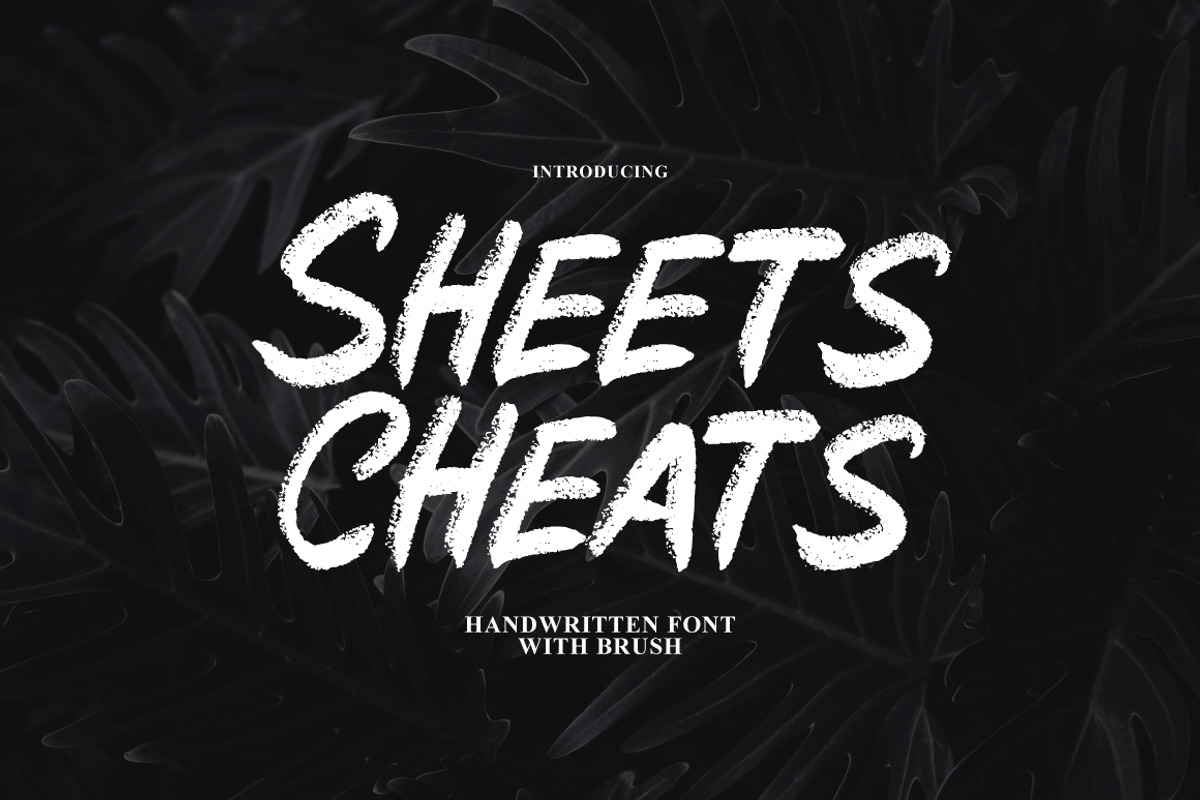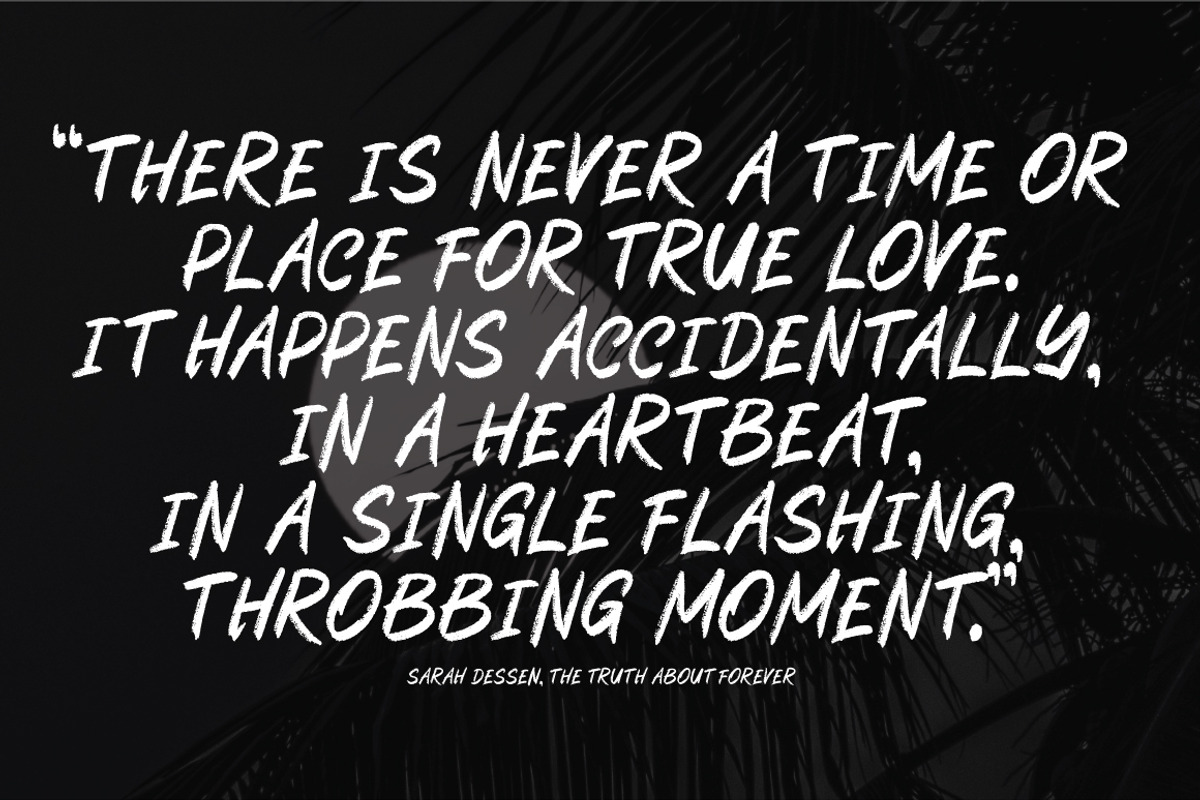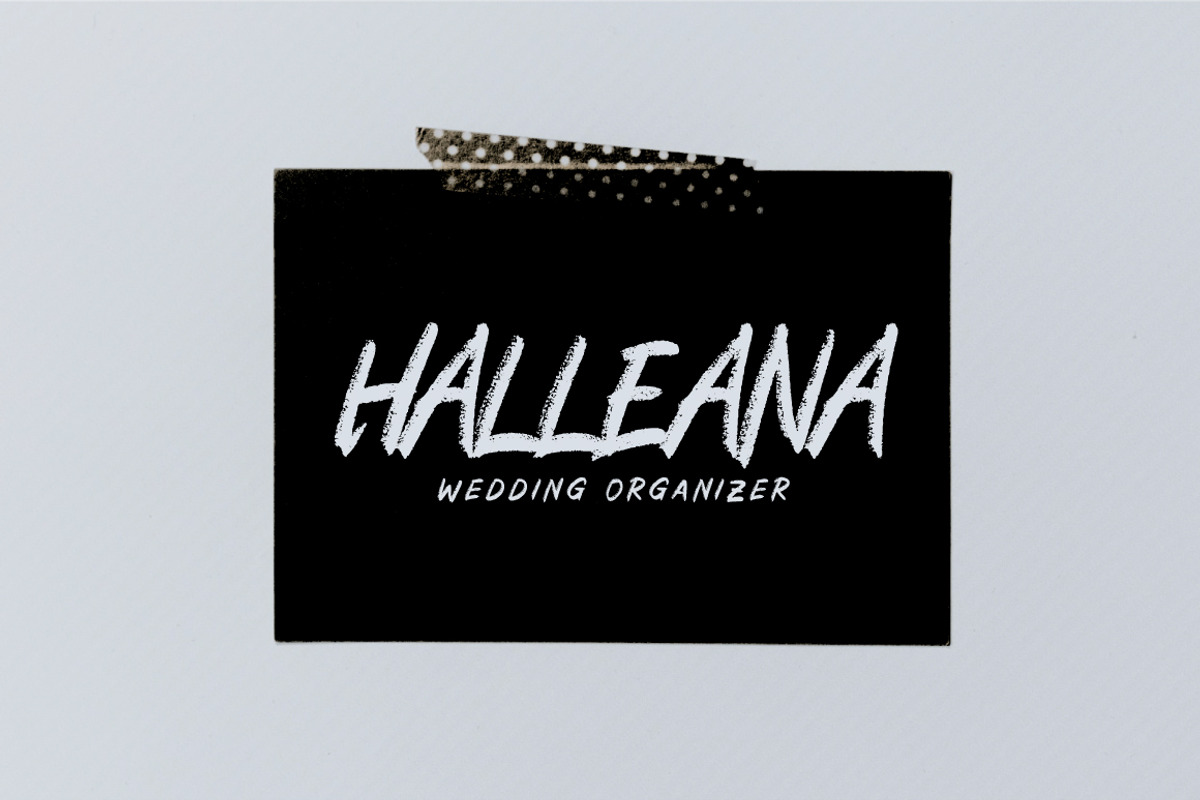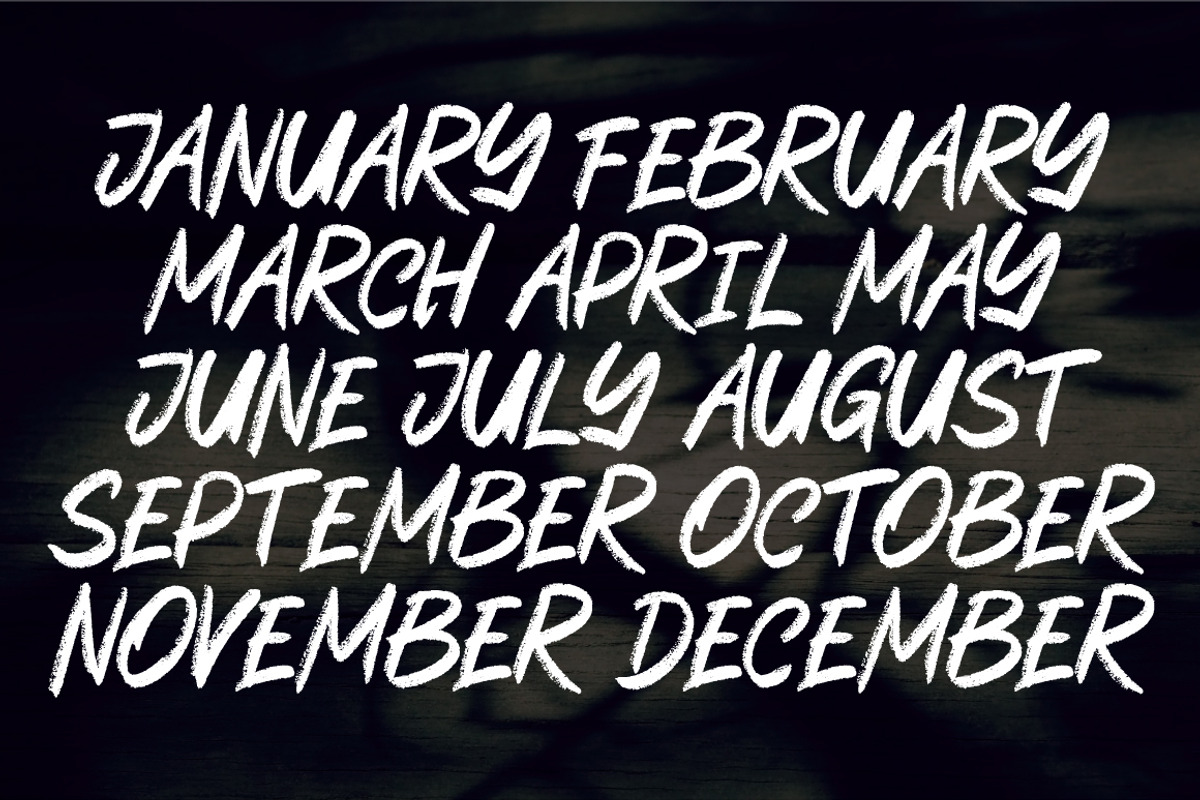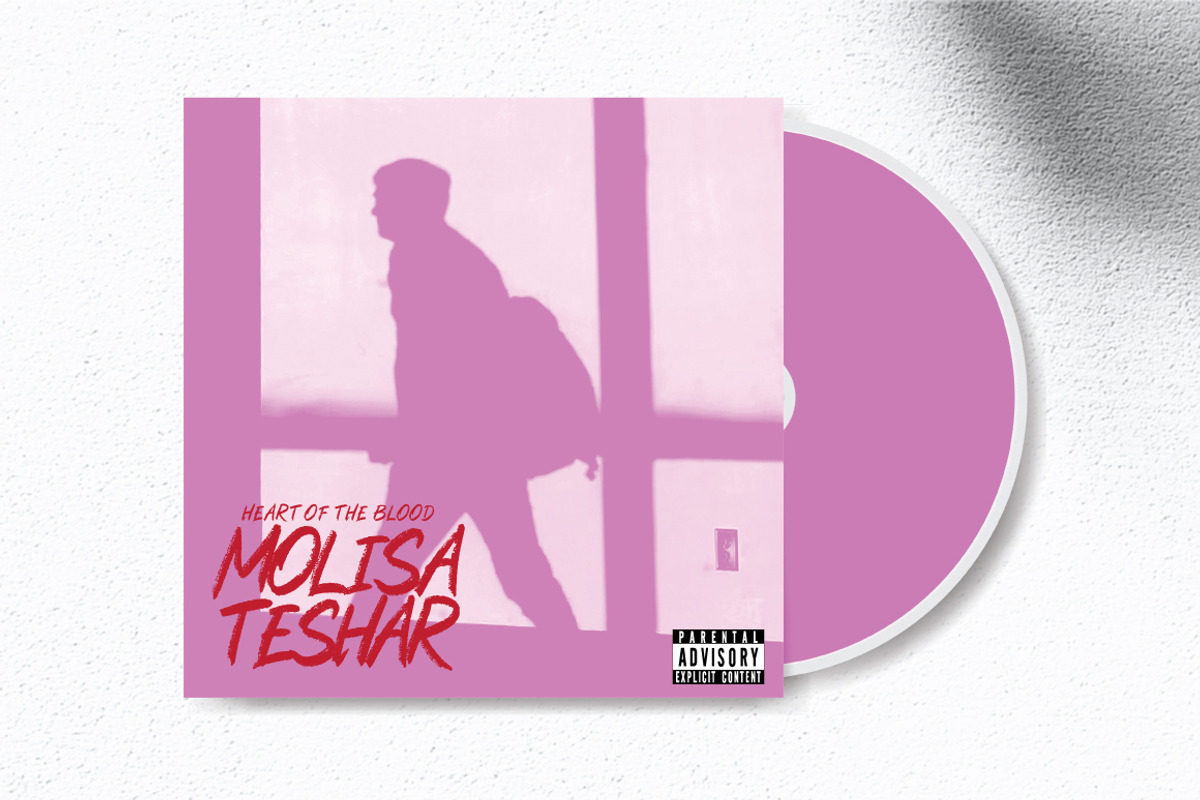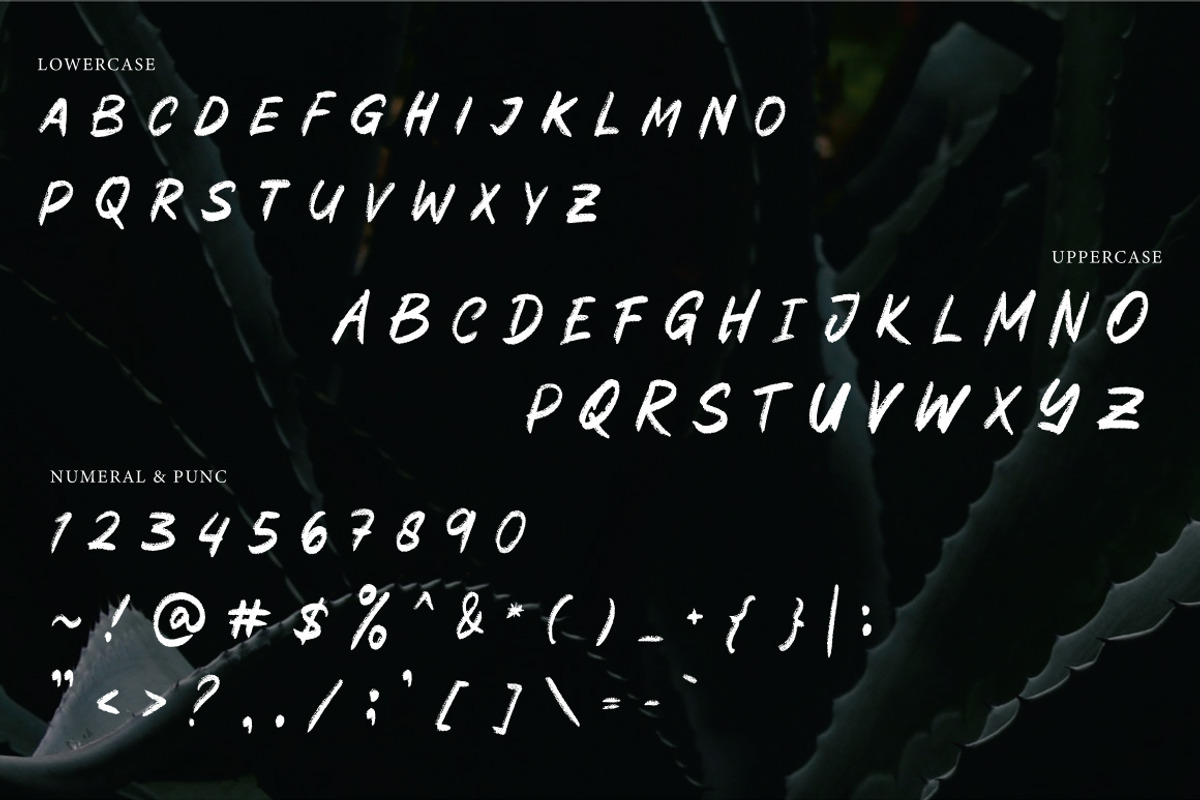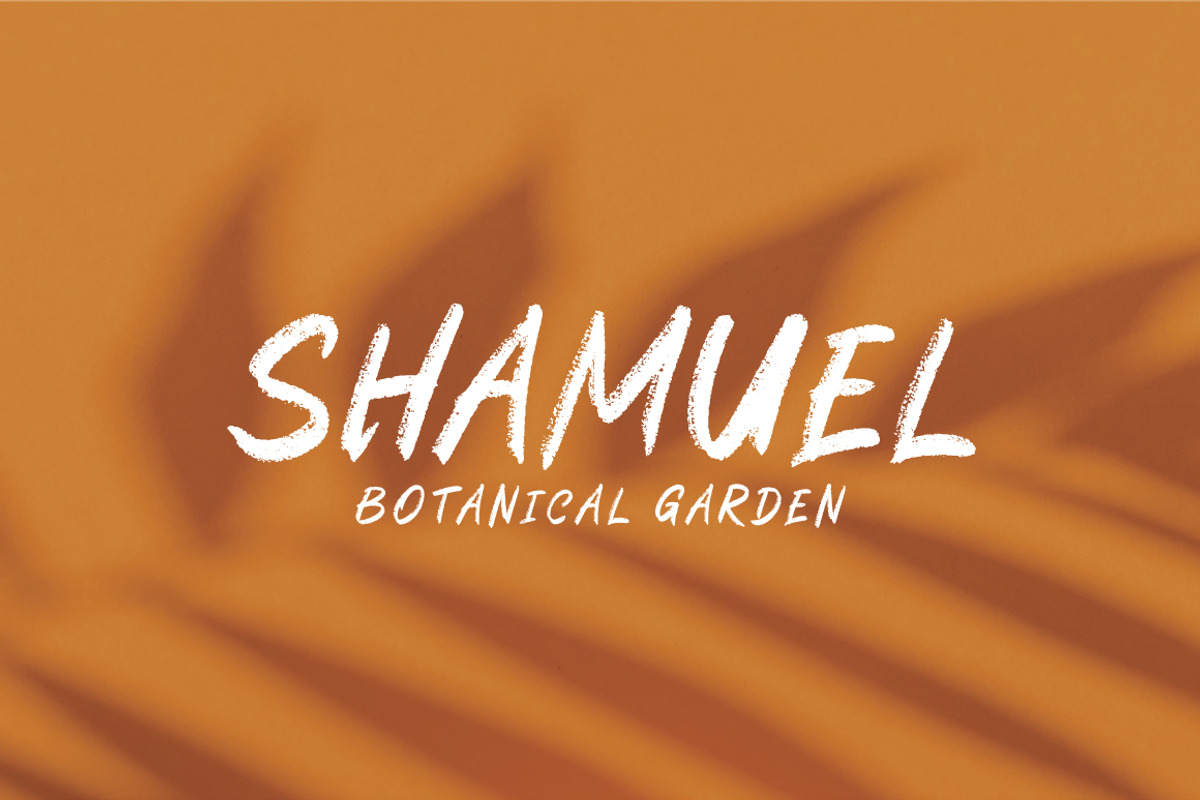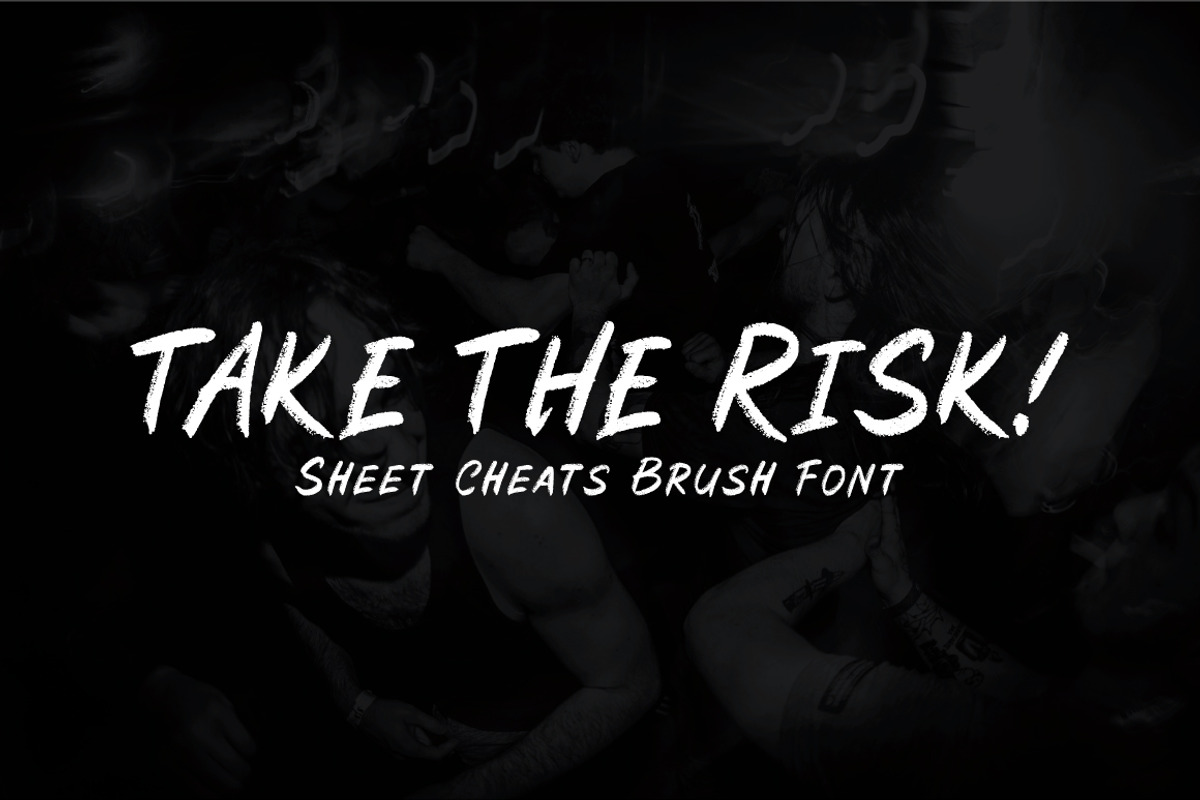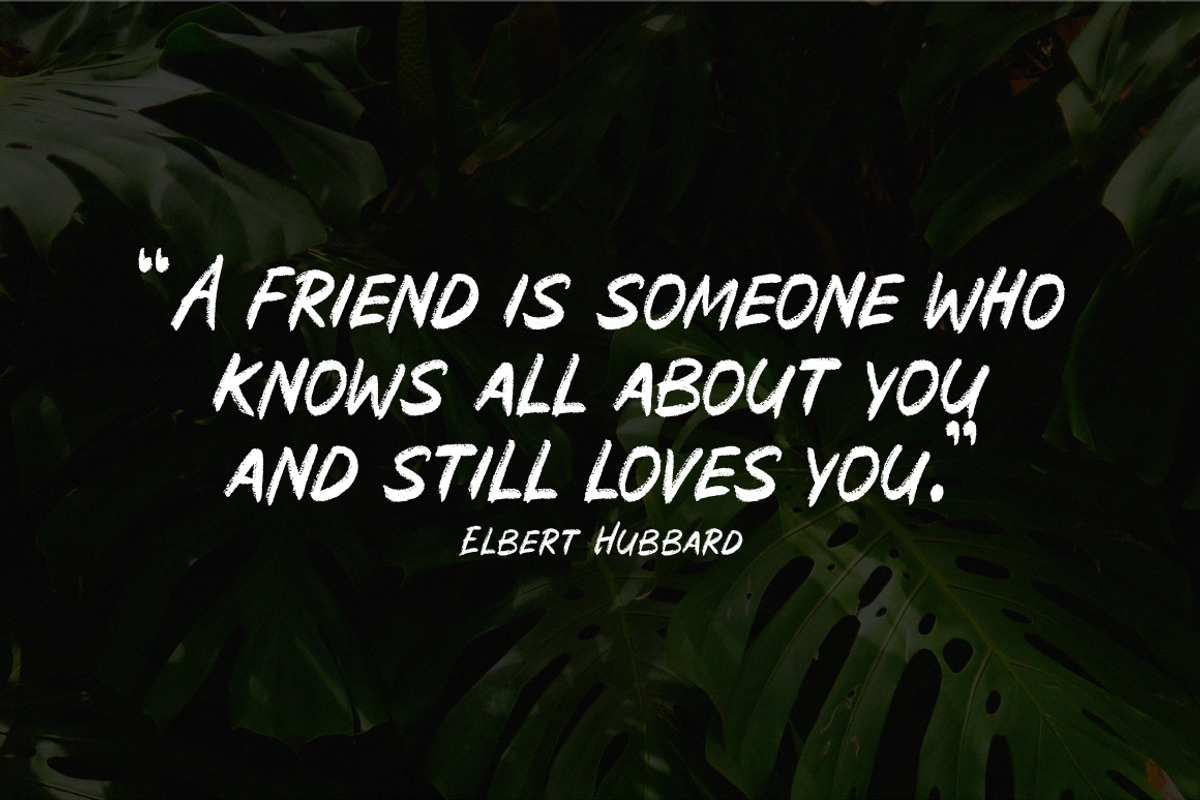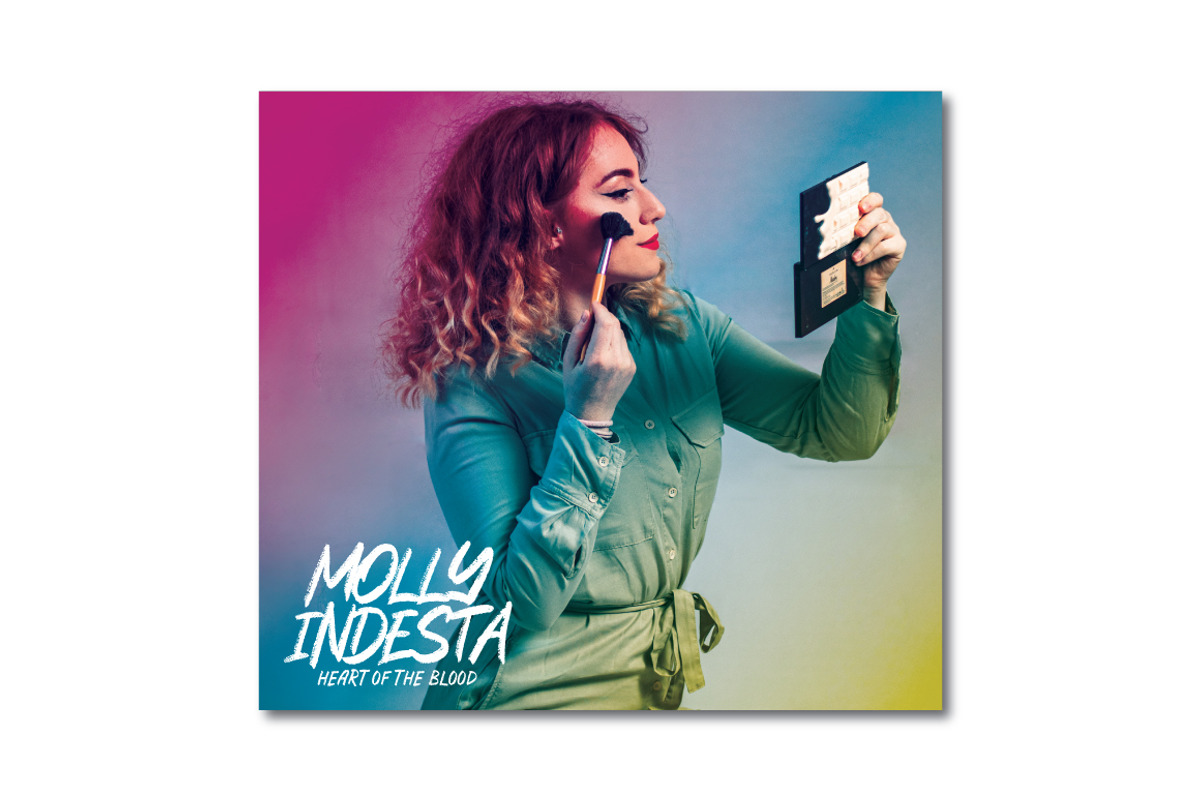
Sheets Cheats - Handwritten Brush
Sheets Cheats Brush is a typeface with personality. You can use it as a logo, badge, insignia, packaging, headline, poster, etc The alternative characters in this font were divided into several OpenType features such as Stylistic Alternates, Stylistic Sets, and Ligature. The OpenType features can be accessed by using OpenType program such as Adobe Illustrator, Adobe Photoshop, and Adobe InDesign.